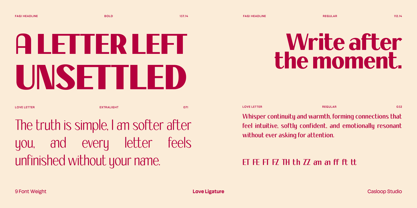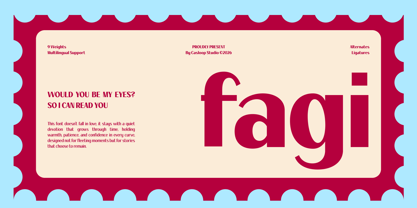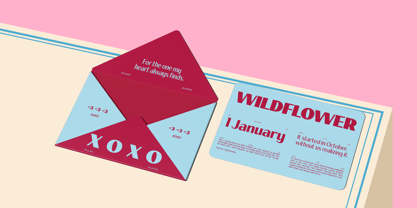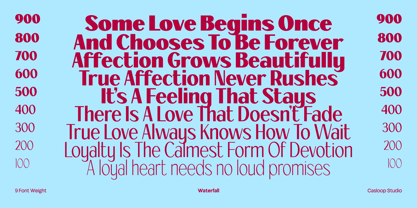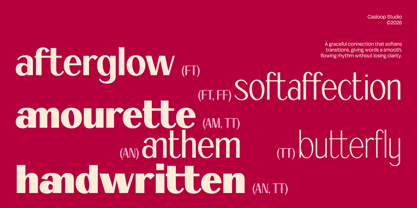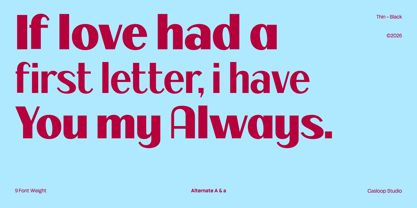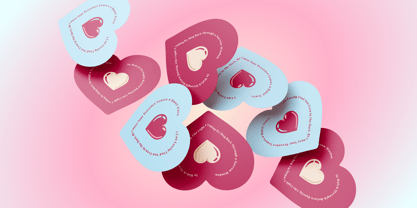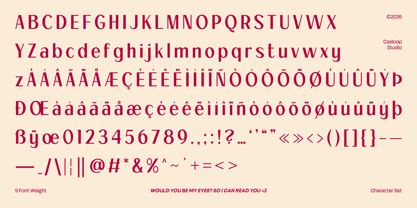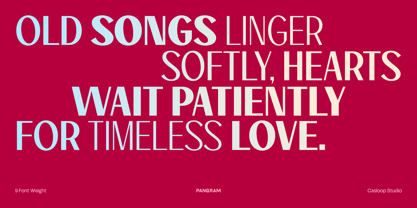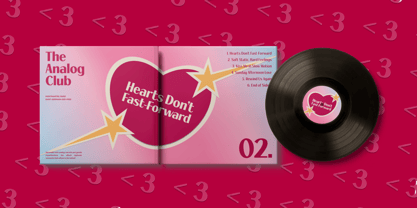
Fhagi
The Fhagi Font Family was designed by Wantara Putra and published by Casloop Studio. Fhagi contains 9 styles and family package options. More about this family
Fhagi is a classic Valentine-inspired serif font that blends retro charm with refined elegance, designed for projects that value subtle confidence over loud expression. Its key characters A, R, S, G, and W are carefully crafted with balanced openings, gentle curves, and a stable structure, creating a typographic personality that feels mature, loyal, and quietly luxurious. With its calm rhythm and graceful weight range, Fhagi is ideal for logos, editorial layouts, food branding, Valentine campaigns, and premium designs that seek a timeless, old-money aesthetic built to last. Recommended pairing with: Playfair Display, Cormorant Garamond, Libre Baskerville, Didot, Garamond, Baskerville Features : Uppercase & Lowercase Numbers and punctuation Ligatures & Stylistic Alternates Characters Multilingulal Support : Bosnian, Catalan, Czech, Danish, German, English, Spanish, Estonian, Finnish, French, Irish, Croatian, Hungarian, Icelandic, Italian, Lithuanian, Latvian, Dutch, Norwegian, Polish, Portuguese, Romanian, Slovak, Slovenian, Albanian, Swedish, Turkish.